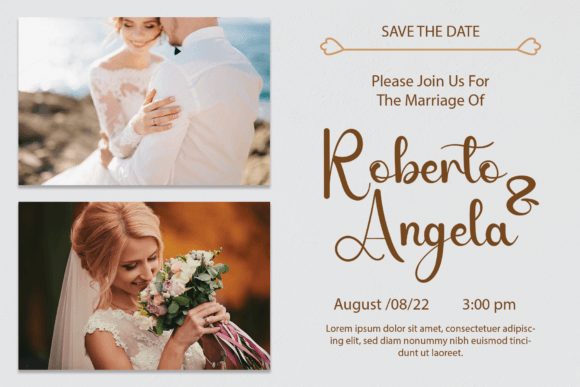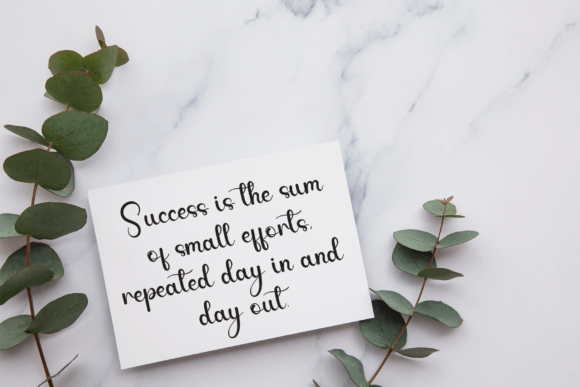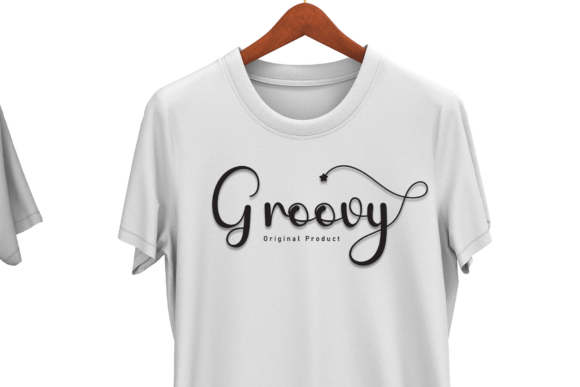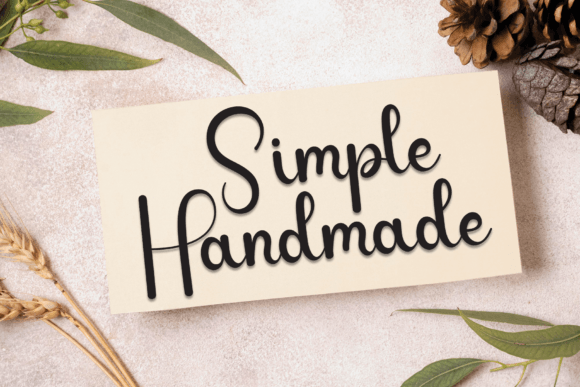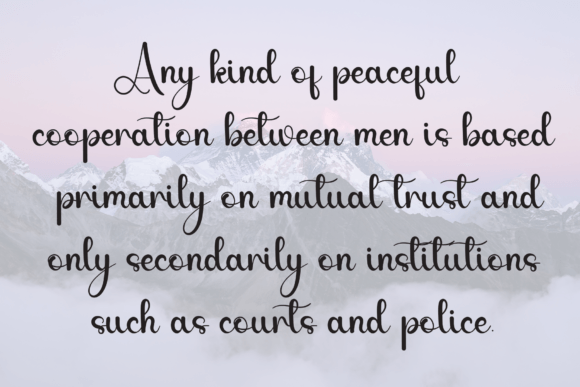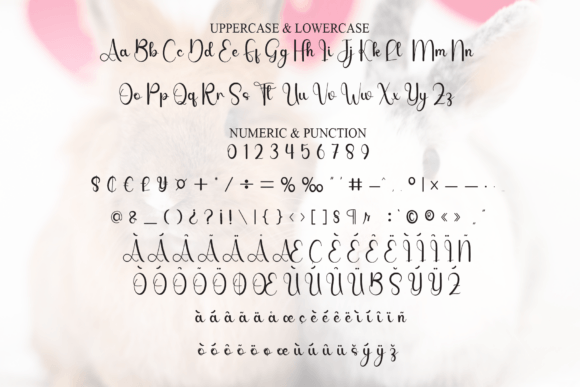
Meet the Font that’s Hop-py to Help: Bunny Font
Who hasn’t experienced that magical moment when creativity strikes, and the perfect design idea suddenly pops into your head? It’s a feeling like no other, and it’s exactly what inspired the creation of Bunny Font – a sweet and charming handwritten display font designed to bring a dash of whimsy to your creative projects.
Bunny Font is more than just a pretty face; it’s a tool that helps designers convey emotions in the most heartfelt and fun way possible. Whether you’re crafting wedding invitations, designing greeting cards, or working on any project that needs a playful touch, this font is sure to bring a smile to your face and a twinkle to your design.
Bunny Font Key Features
- Unique Characteristics: The font features a playful, hand-drawn design with a mix of rounded and angular shapes, creating a whimsical and eye-catching visual effect.
- Language Support: Bunny Font includes support for a wide range of languages, including Latin, Cyrillic, and Greek scripts, making it suitable for global branding and design projects.
Bunny Font Review
Overall, I think the Bunny Font is a cute and playful choice for designers looking to add some whimsy to their projects. Here are some things that work well:
- ✨ It’s extremely versatile: Whether you’re designing a children’s book, a social media campaign, or a logo, the Bunny Font is a great choice for creating a lighthearted and approachable atmosphere.
- ✨ The font is highly customizable: With its various styles and weights, you can easily adjust the font to fit your design needs.
- ✨ It’s a great choice for hand-lettering: The Bunny Font’s cursive feel makes it perfect for creating hand-lettered quotes, headings, or even entire stories.
- ⚠️ It may not be suitable for formal or professional designs: The Bunny Font’s playful nature may not be the best choice for projects that require a more serious tone.
- ⚠️ It may not be as readable at smaller font sizes: While the font is cute and fun, it can become difficult to read at smaller sizes, which may limit its use in certain projects.
Overall, I think the Bunny Font is a fun and creative choice for designers who want to add some personality to their projects. While it may not be the best choice for every project, it’s definitely worth considering for those that require a lighthearted and approachable atmosphere.
Bunny Font is a playful and whimsical font, making it perfect for:
- Children’s books and educational materials
- Social media posts and advertisements targeting a younger audience
- Party invitations and event materials
- Adding a touch of whimsy to business presentations and reports
Remember to use the Bunny Font in moderation to avoid overwhelming your audience.